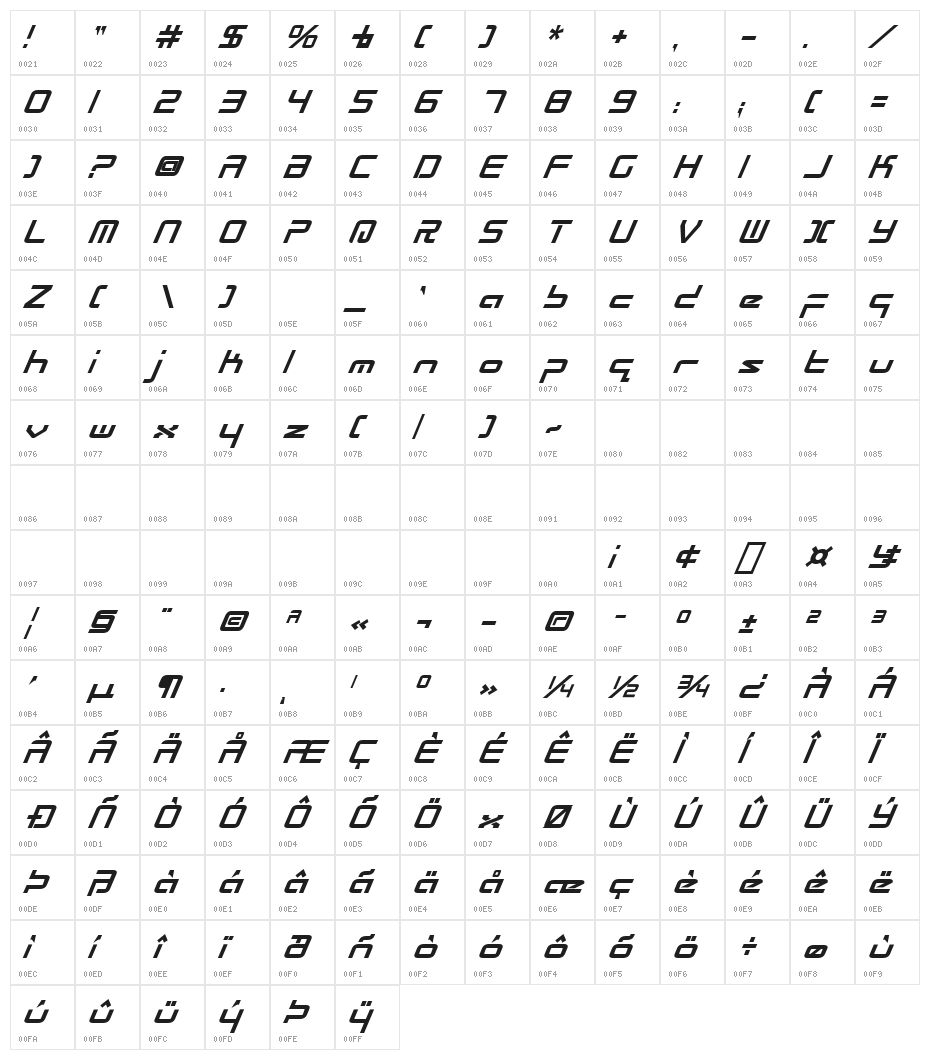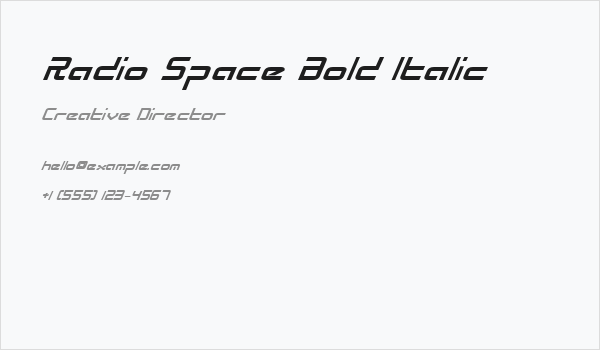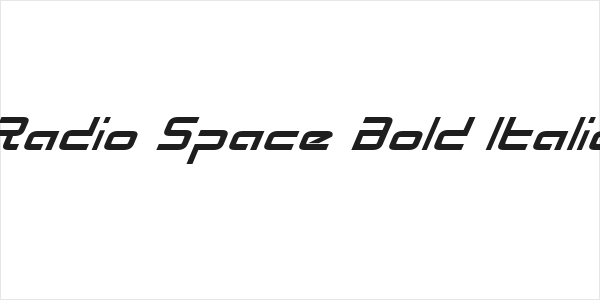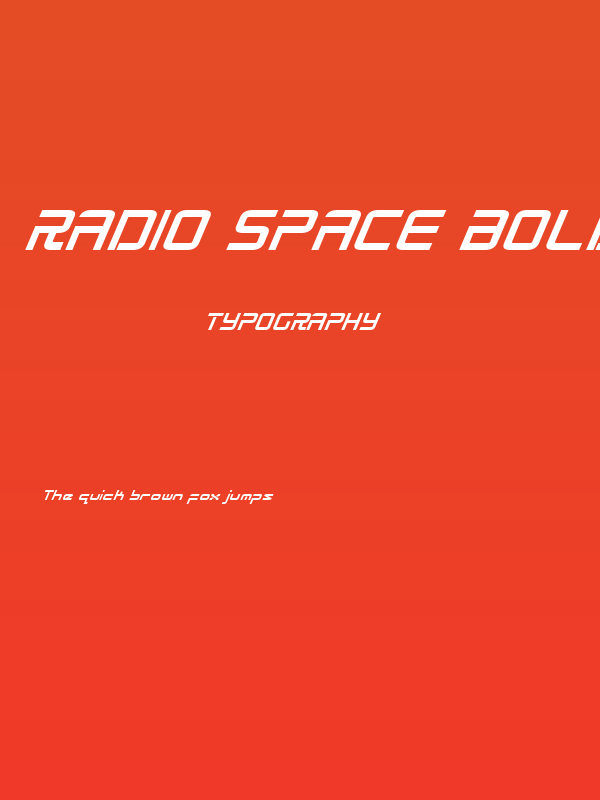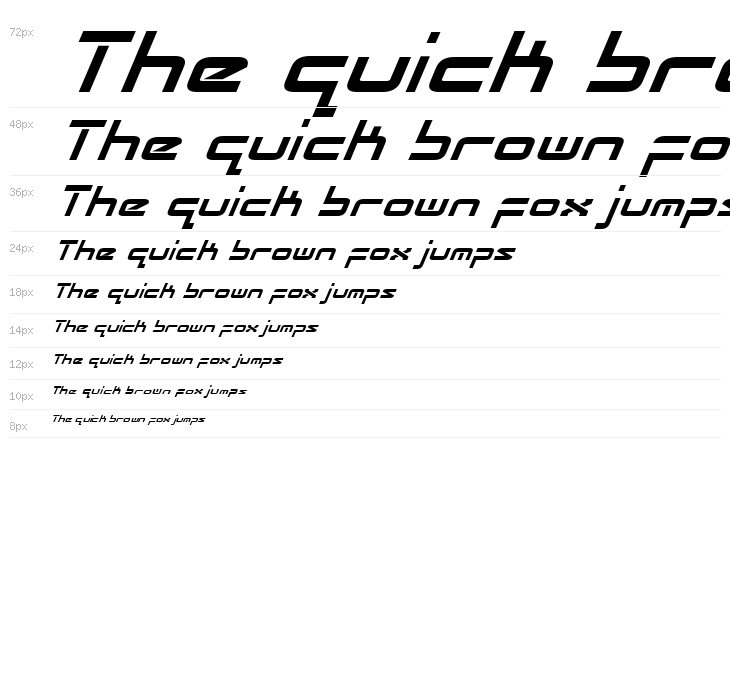
Radio Space Bold Italic Font
Radio Space Bold Italic Description
This font features a futuristic and dynamic design, characterized by its bold and italicized style. The letters are slightly slanted, giving a sense of motion and speed. The strokes are thick and consistent, providing a strong visual impact. The geometric shapes and sharp angles contribute to its modern and edgy appearance. This font is particularly suitable for projects that require a contemporary and energetic feel, such as technology-related branding or sci-fi themed designs. The numerals and special characters maintain the same stylistic elements, ensuring a cohesive look across all text elements.
Proposed ProjectsIdeal for technology branding, sci-fi themes, and modern advertising.